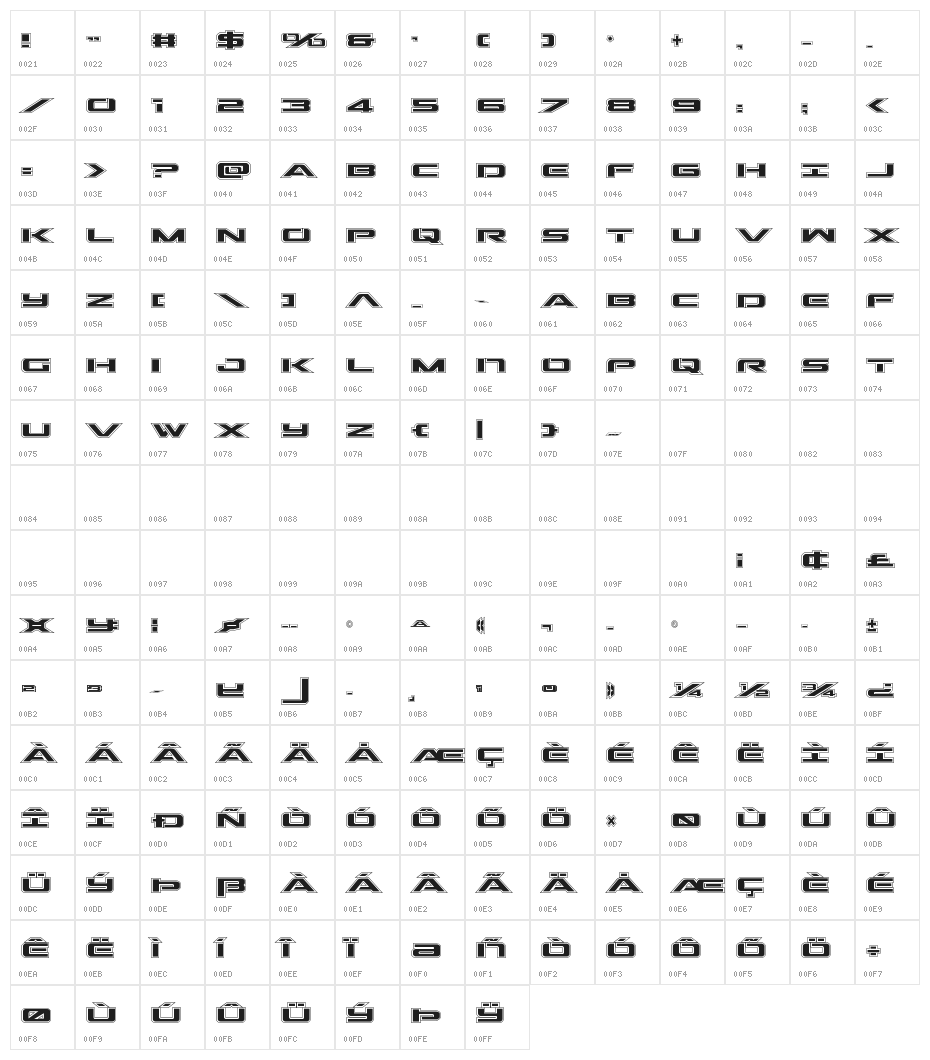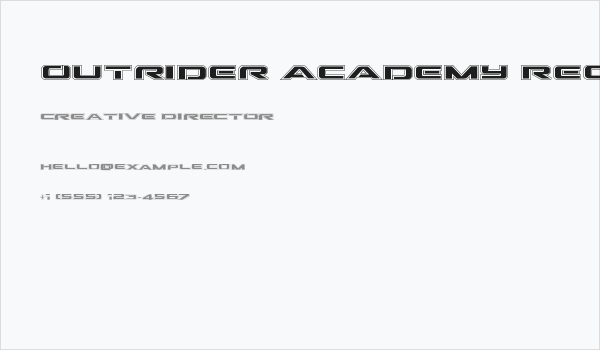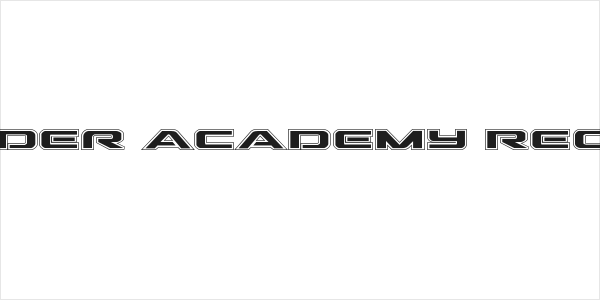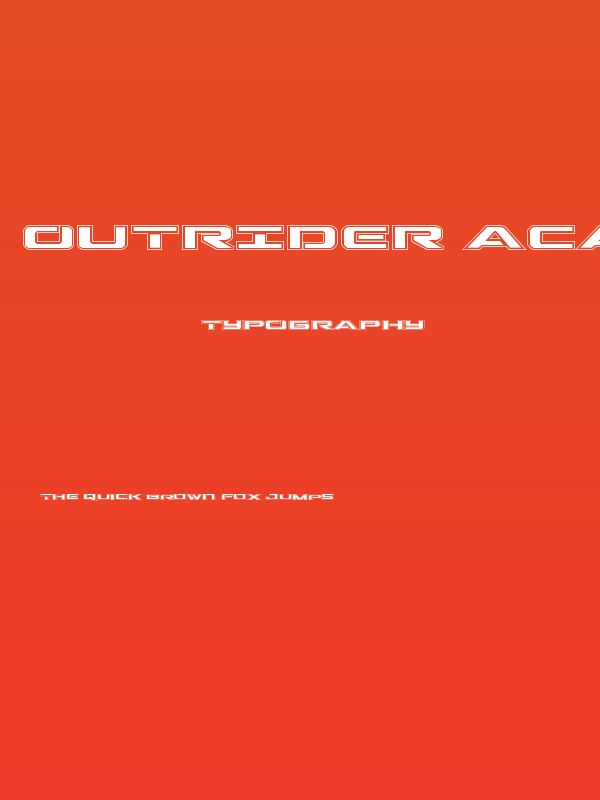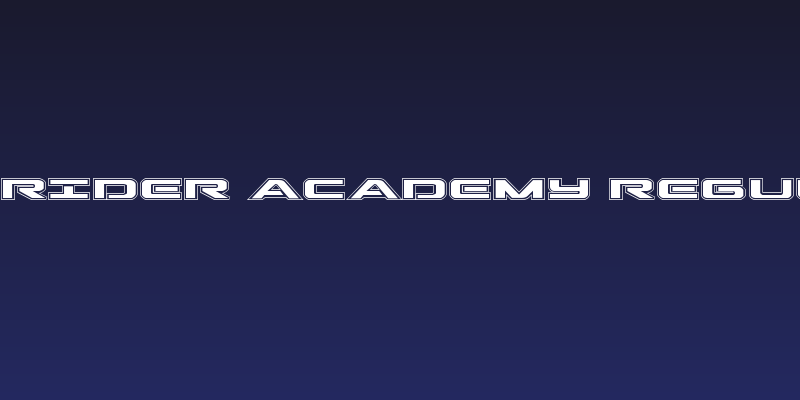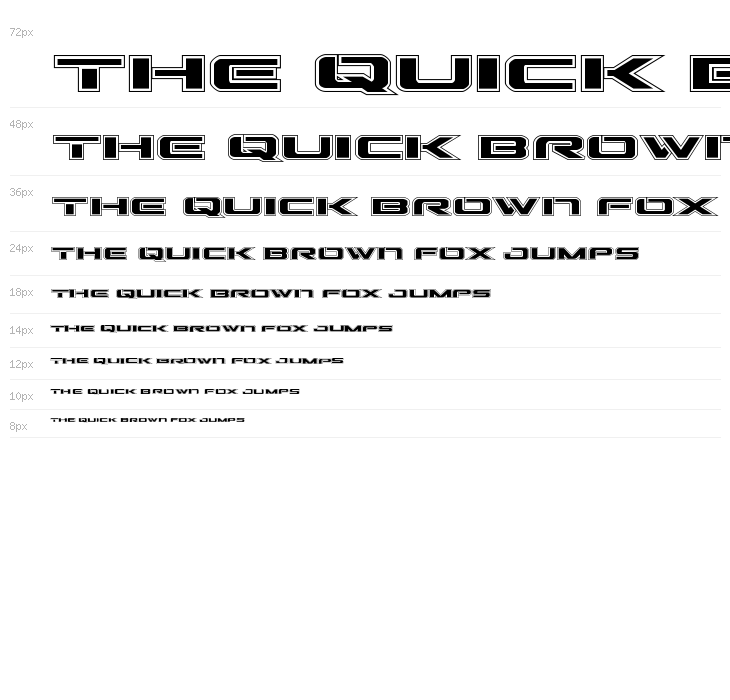
Outrider Academy Regular Font
Outrider Academy Regular Description
This font features a bold, futuristic design with a strong geometric influence. The characters are outlined with a double line, giving them a three-dimensional effect. The uppercase and lowercase letters maintain a consistent style, with sharp angles and clean lines. The numbers and special characters follow the same design principles, ensuring uniformity across all glyphs. The font's unique style makes it stand out, ideal for projects that require a modern and dynamic appearance.
Proposed ProjectsIdeal for sci-fi themed designs, video game titles, tech branding, and modern posters.